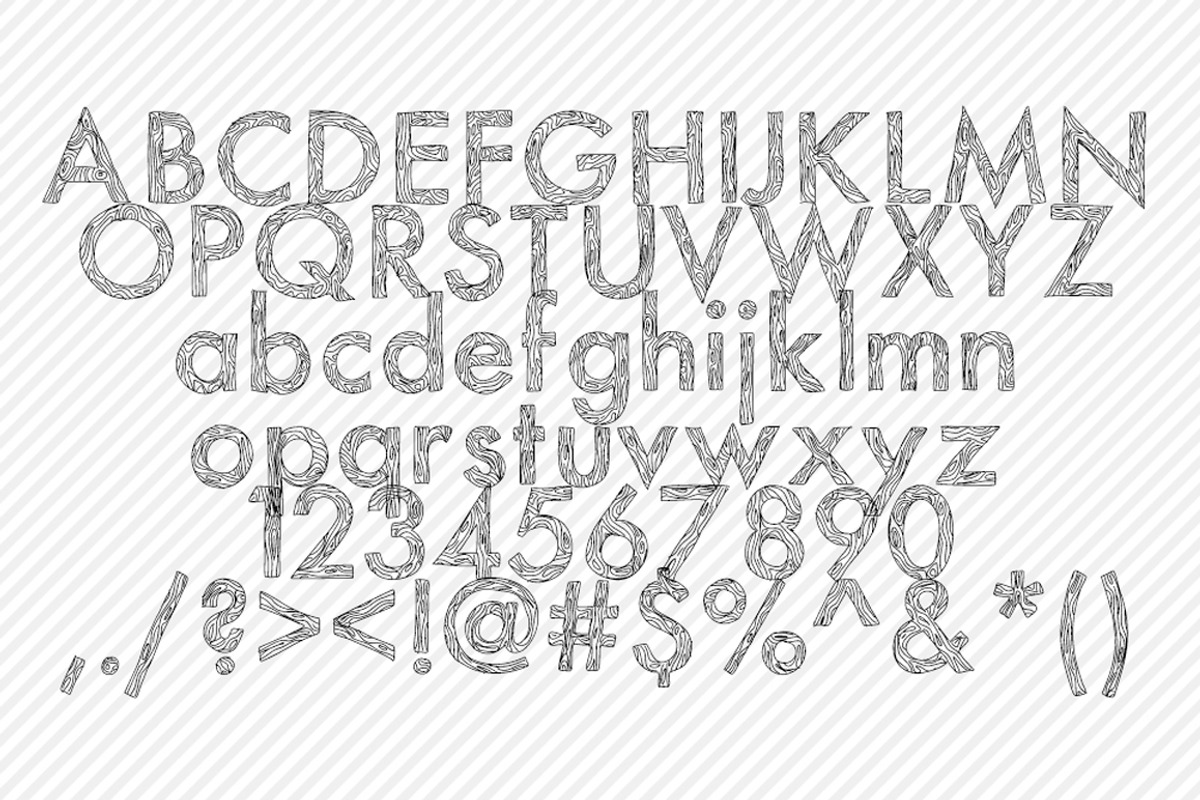
Wooden Hand Drawn Font
Wooden Hand Drawn Font by Polka Dot Pixels is a font selected for branding, posters, packaging, typography.
- contains uppercase and lowercase letters and punctuation.
Why Wooden Hand Drawn Font is worth a look
Wooden Hand Drawn Font by Polka Dot Pixels fits naturally into Branding, posters, packaging, typography.